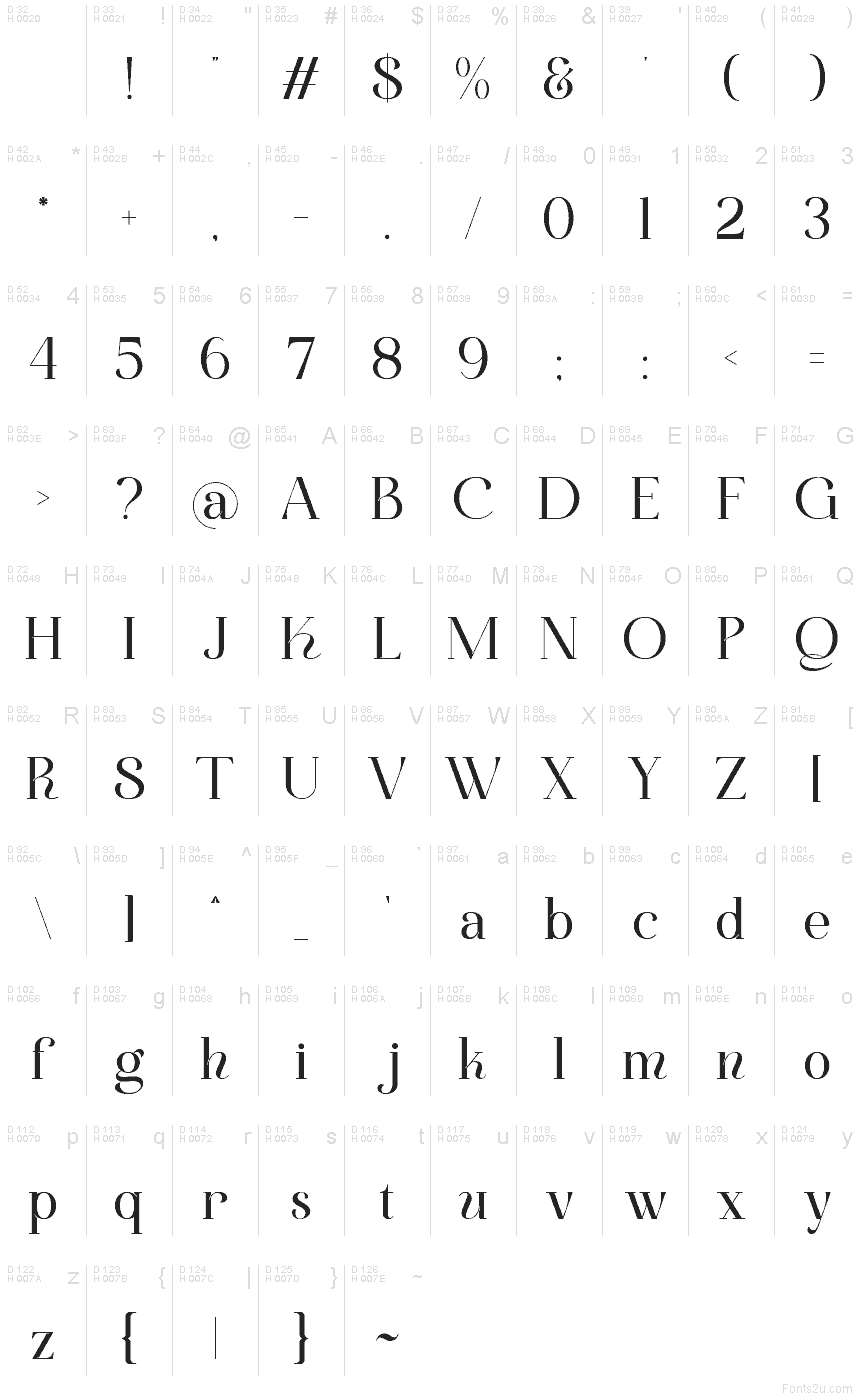
Arthyc
Arthyc font by Ermedia Studio is a free vintage serif font that nails the tricky balance between lavish personality and clear, confident reading. Its high contrast strokes, knife-edge serifs, and silky curves deliver editorial drama without turning fussy, so headlines look luxurious and crisp rather than cluttered. The letters feel sculpted—inky thicks, whisper-thin thins—giving your layouts that timeless, fashion-forward snap.
Using Arthyc, you can elevate boutique branding, wine or perfume labels, magazine mastheads, event posters, wedding invitations, and upscale menus. This free font shines on large titles and logos; give it generous size and a touch of tracking to let the hairlines breathe. For body copy, pair it with a clean grotesk sans to keep the spotlight on Arthyc’s elegant contrast.